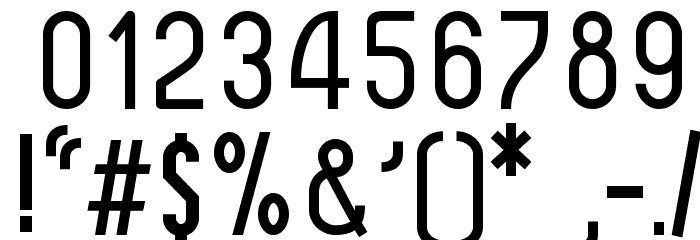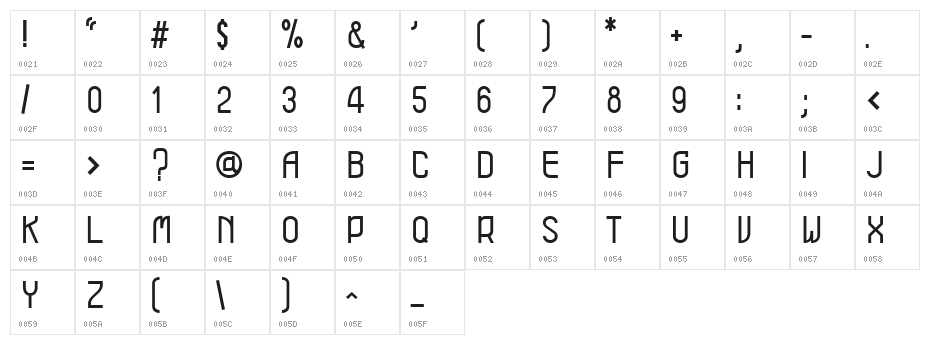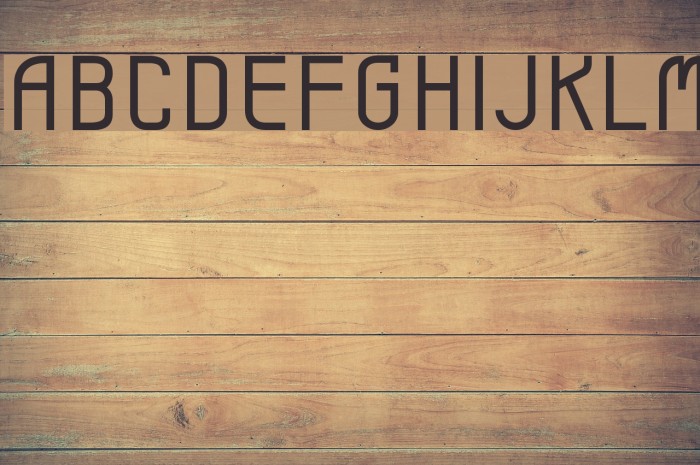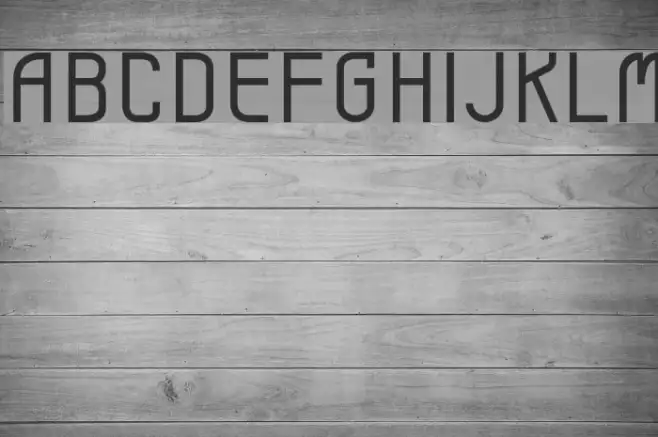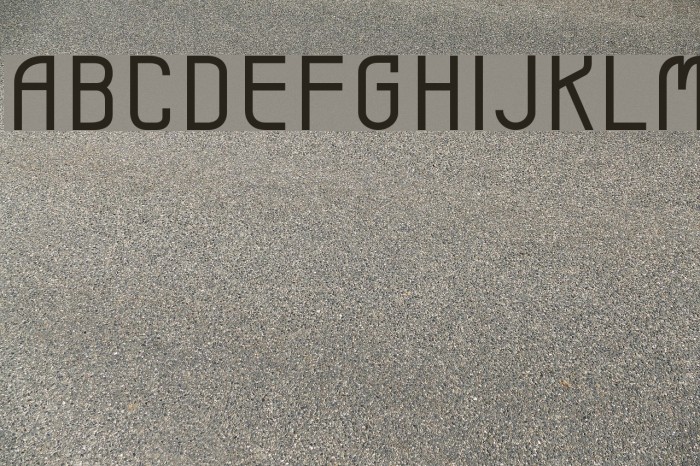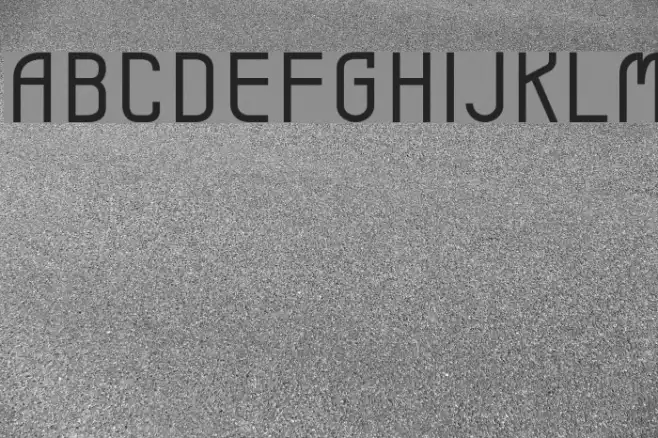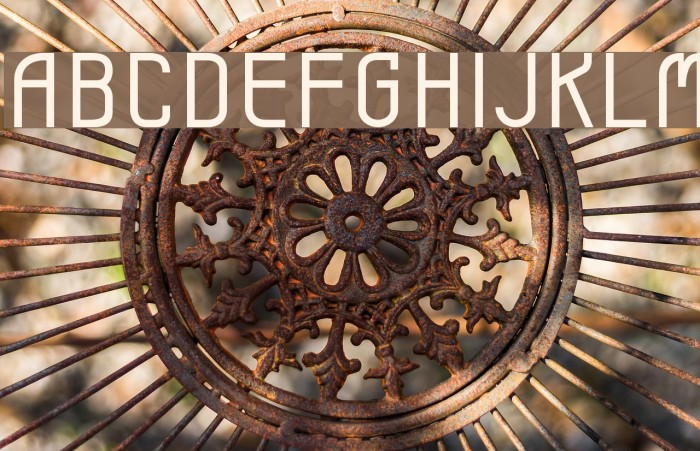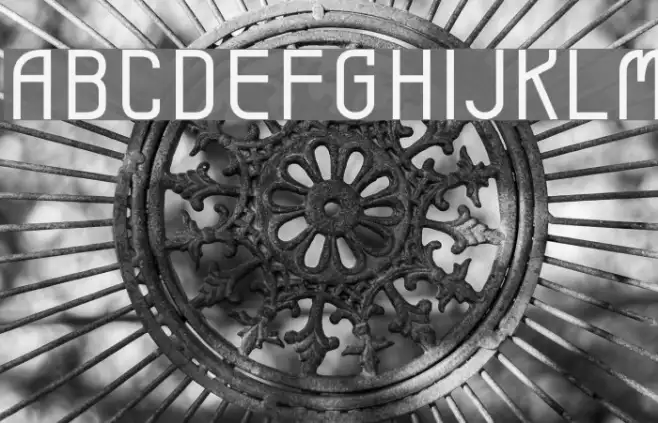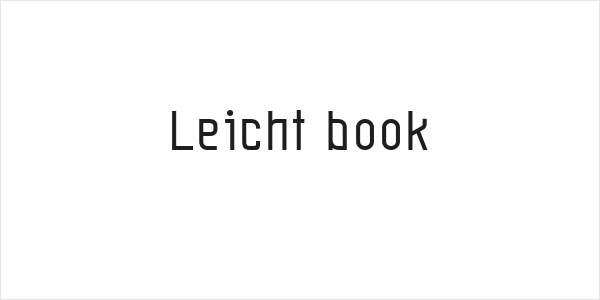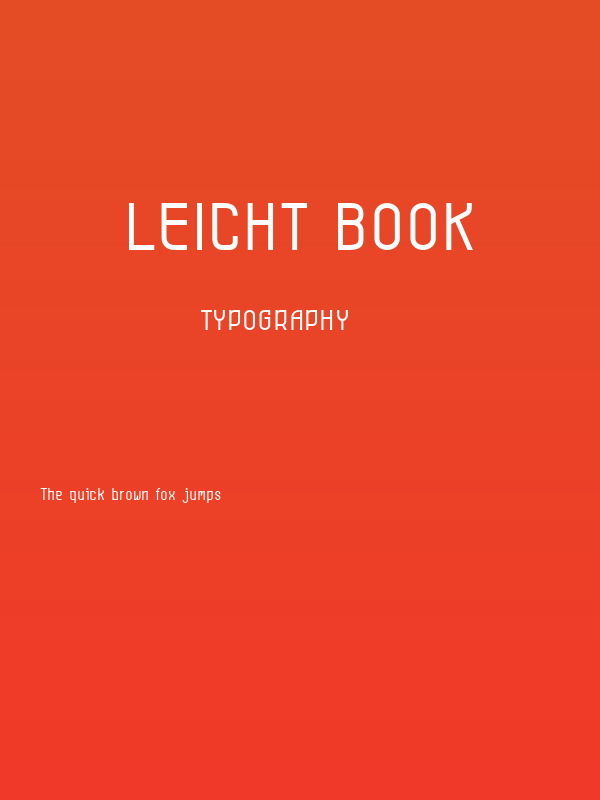
Leicht book Font
Leicht book Description
This font features a clean and modern sans-serif style with a geometric structure. The characters are uniform in width, providing a balanced and harmonious appearance. The uppercase letters are bold and assertive, while the lowercase letters maintain a consistent height, enhancing readability. The numerals are straightforward and align well with the overall design, making them suitable for digital displays. Special characters are distinct and easily recognizable, adding versatility to the font's application. The overall look is minimalistic yet impactful, ideal for contemporary design projects.
| Proposed Projects | Ideal for digital interfaces, branding, advertising, and editorial design. |